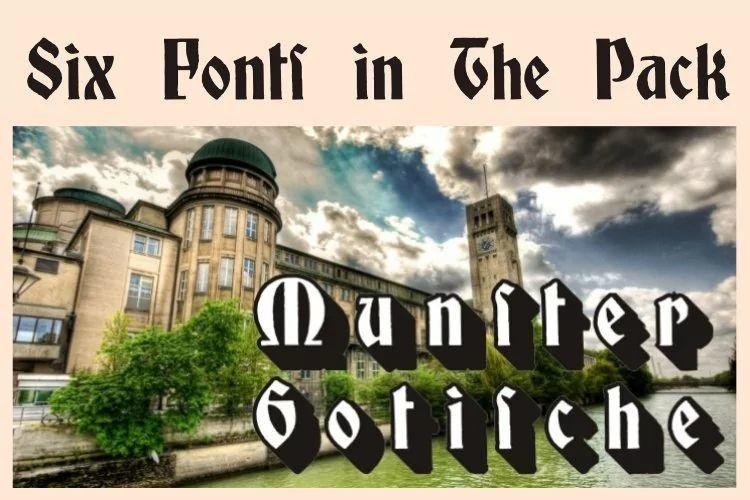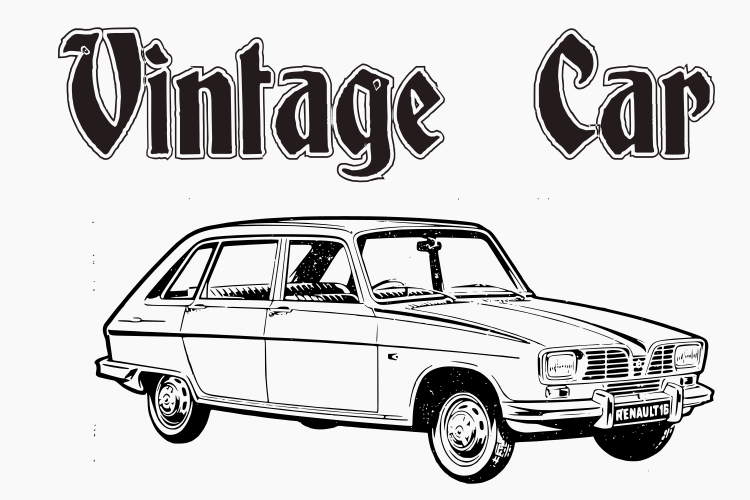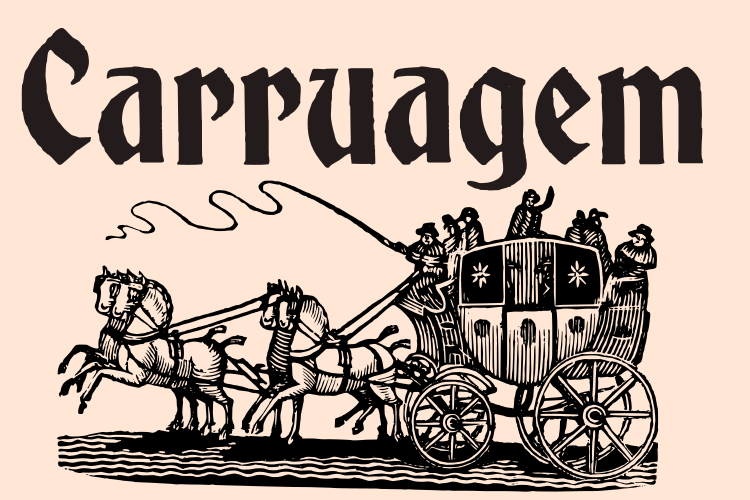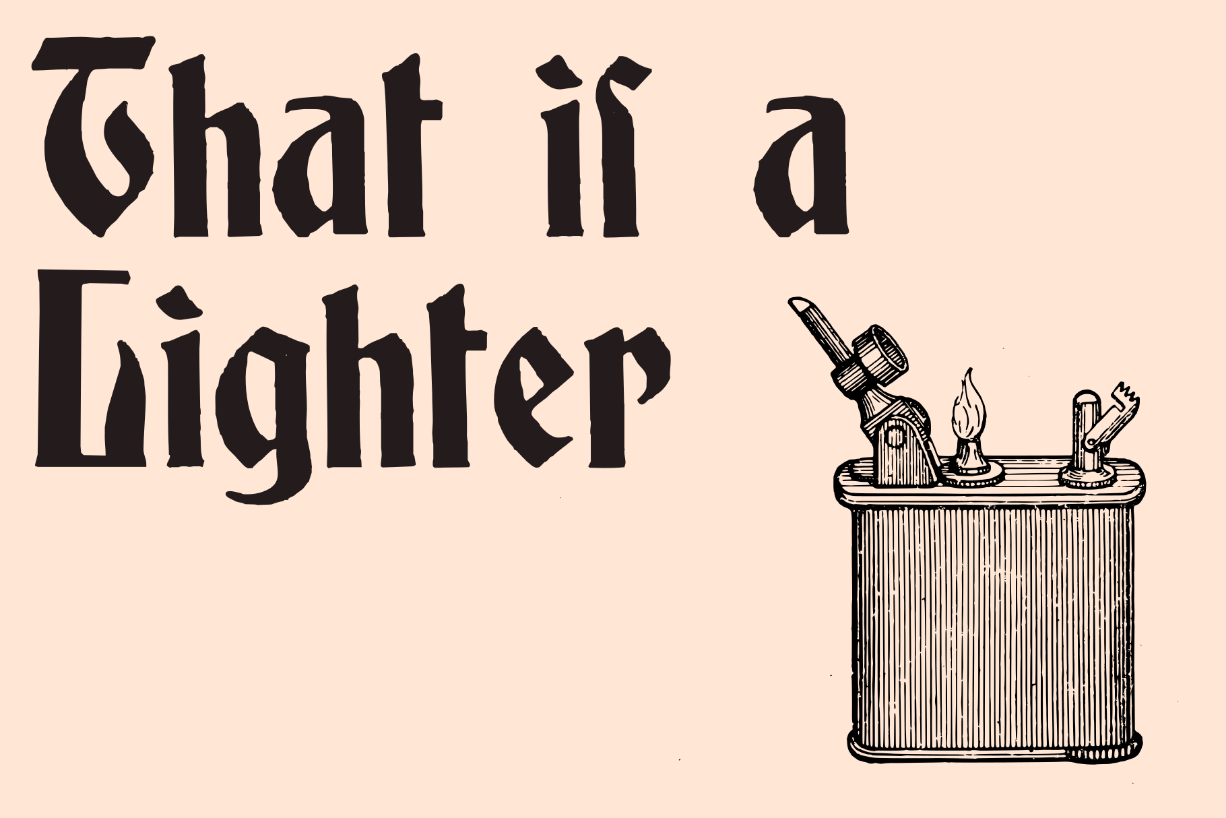
Munster Gotische Font
About Munster Gotische Font
Munster Gotische is a blackletter font family inspired by an 1896 typeface created by Schelter&Giesecke, a classic extinct foundry. Add it to your history-themed projects and you will love the old-timey feel it brings to them.